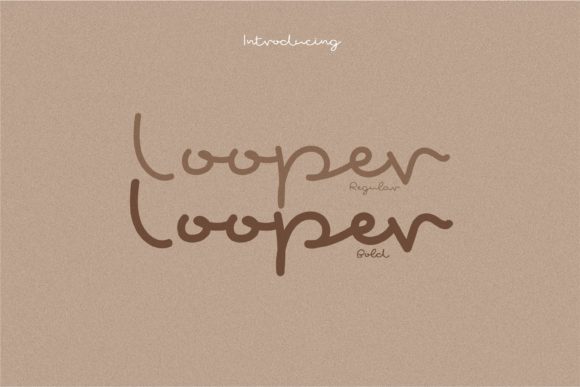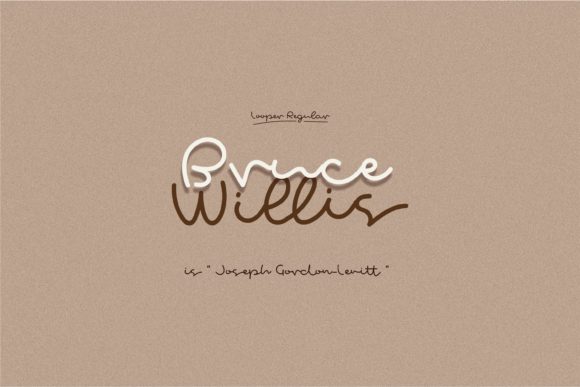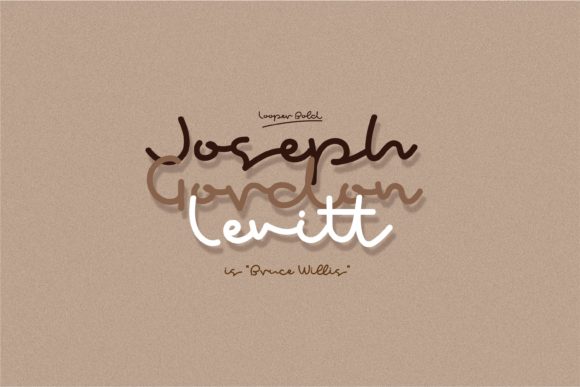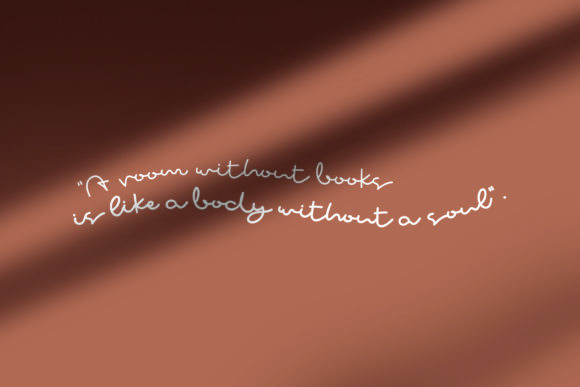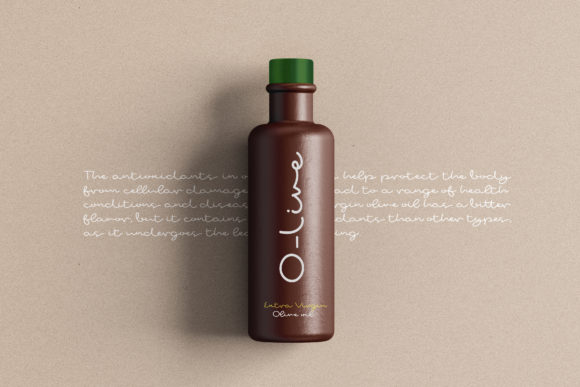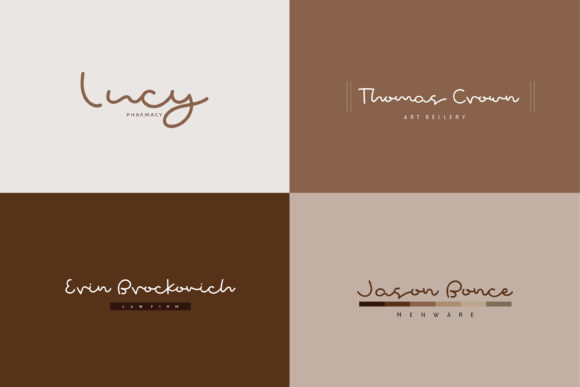
Looper Font
About Looper Font
Looper is a fun, round-lettered and relaxed handwritten font. It will look great on magazines, posters, logos, quotes and any other design you wish to create!